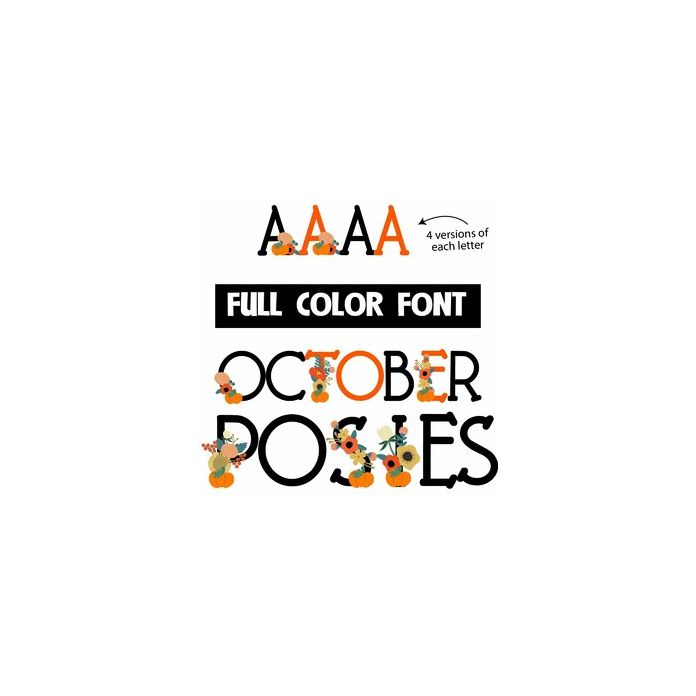
This full-color font features Halloween-colored lettering and pretty pumpkin florals on the uppercase. There is an alternate colored upper and lowercase you can access through glyph maps.